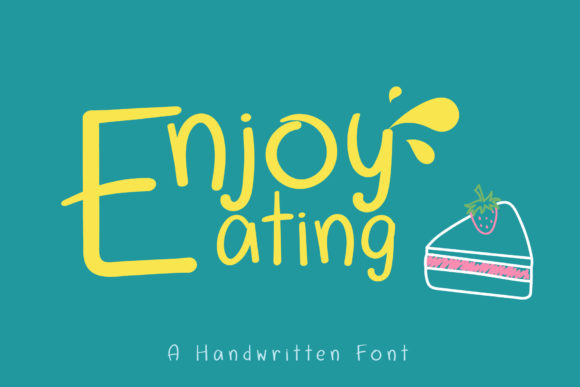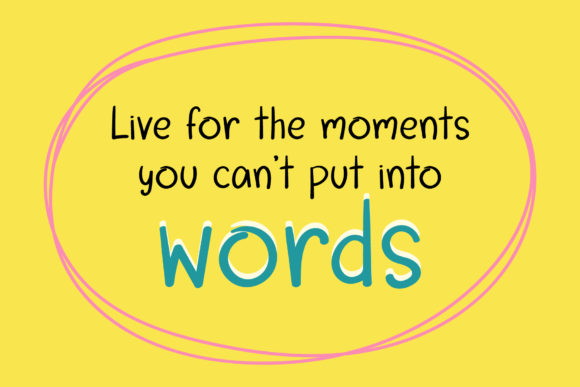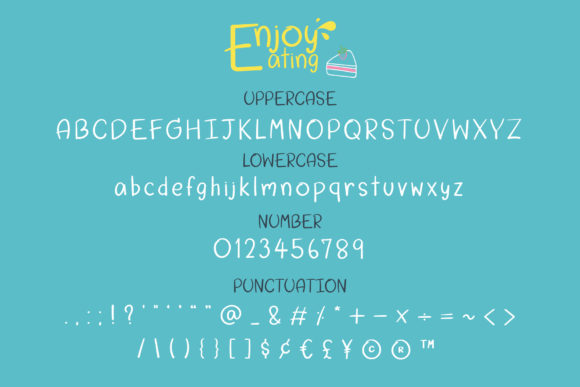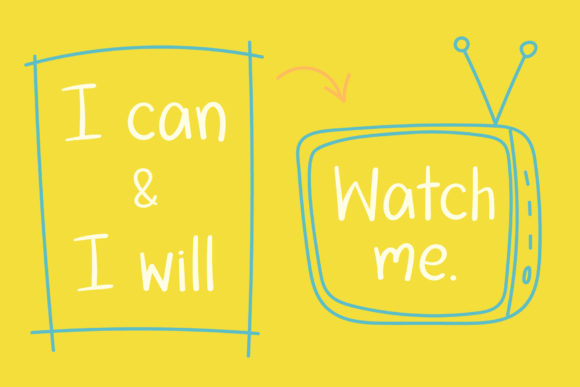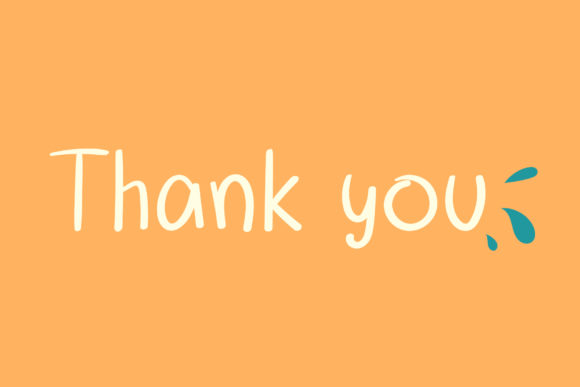
Enjoy Eating Font
About Enjoy Eating Font
Enjoy Eating is a round lettered, playful handwritten font. Due to its versatility , it will elevate a wide range of design projects to the highest level, be it branding, headings, wedding designs, invitations, signatures, logos, labels, and much more! The only limit is your imagination!